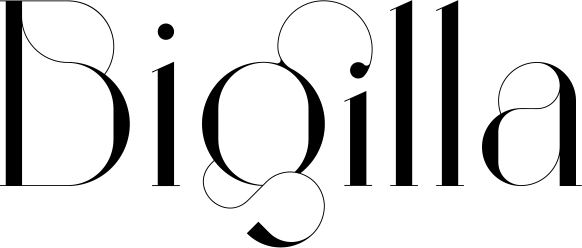
Bigilla Font
How beautiful and special will be your written style if it adorned with this unique Bigilla font that features two different files to give you the power to choose and diversify your typography?
Although thin lines in some parts of the letters cause a beautiful contrast, they may make it illegible from a distance. Just immerse this fancy font in designing what you want such as headers, movie titles, or posters to see how eager your audience will be.
Bigilla™ is a display serif typeface with 2 font weights (Regular-Bold) that include many ligatures and alternates. This typeface is multilingual and perfect for : Branding, posters, Magazines, packaging designs and so much more.